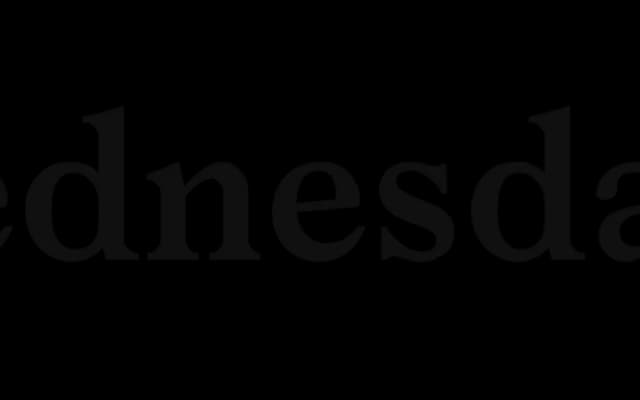
Larish Neue
Radim Pesko · Radim Peško
A contemporary spin-off of Larish Alte by Radim Peško, retaining the original's genetic material while aiming for a more modern character.
Born as a by-product of Larish Alte, this typeface strips the original back to its underlying structure and rebuilds it toward a contemporary register. The family is slim in scope, offering a Semibold with matching italic, and has seen use in editorial headline settings including Pitchfork. Its positioning as a derivative rather than a standalone design gives it a clear conceptual identity without overclaiming originality.
Described as a contemporary-looking derivative of Larish Alte, retaining the DNA of the original while presenting a more modern character; the limited specimen suggests a refined serif with display qualities.